Are you looking to add a touch of whimsy and playfulness to your design projects? Look no further than the mesmerizing world of Balloon Font Canva! Inspired by the carefree spirit of childhood, this unique typographic style is perfect for infusing a sense of fun and creativity into your designs. Let’s dive into the enchanting world of Balloon Font Canva and discover how you can elevate your projects with its delightful charm.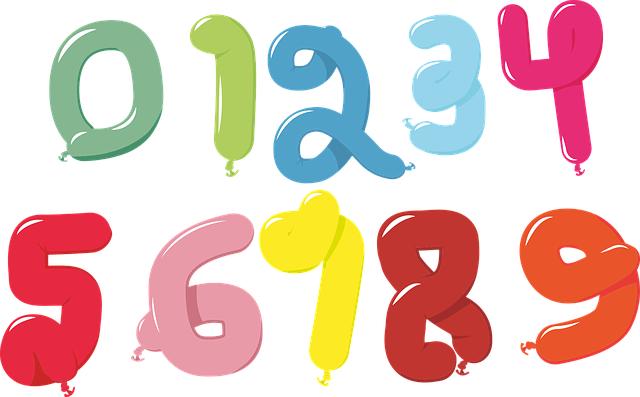
– Introducing the Balloon Font in Canva: A Fun and Whimsical Typography Option
Are you tired of using the same old boring fonts in your designs? Well, we have some exciting news for you! Canva is thrilled to introduce the Balloon Font, a fun and whimsical typography option that will add a playful touch to your creations. This unique font is perfect for those looking to add a bit of personality and charm to their designs.
The Balloon Font is not your typical font – it features round, bubbly letters that will make your text pop off the page. Whether you’re creating invitations, greeting cards, social media graphics, or any other design, this font is sure to make a statement. With its playful and lighthearted style, the Balloon Font is a great choice for anyone looking to inject some fun into their projects. So why settle for boring fonts when you can bring your designs to life with the Balloon Font?
– How to Use Balloon Font in Canva to Add Playfulness to Your Projects
Incorporating a fun and playful element into your design projects is as easy as using Canva’s Balloon Font feature. This unique font style adds a touch of whimsy and creativity to your creations, making them stand out and capture attention. To start using Balloon Font in Canva, follow these simple steps:
Experiment with different typography combinations to find the perfect balance between fun and functionality. Balloon Font can be a great tool for adding a touch of personality to your social media graphics, posters, invitations, and more. Have fun playing around with this feature to elevate your design projects and make them truly pop!
– Tips for Choosing the Right Colors to Complement the Balloon Font in Canva
When selecting colors to complement the Balloon font in Canva, it’s essential to consider the overall aesthetic you want to achieve. One tip is to choose colors that contrast with the font color itself, such as pairing a light font with a dark background. This contrast will make the text stand out and be more readable. Additionally, you can use color theory principles to create harmonious color schemes that enhance the font’s playful and whimsical nature. For example, consider using analogous colors (colors that are next to each other on the color wheel) or complementary colors (colors that are opposite each other on the color wheel) to create a visually pleasing design.
Another tip for choosing the right colors for the Balloon font in Canva is to take into account the mood or message you want to convey. For a bright and cheerful design, opt for vibrant and bold colors. On the other hand, if you want a more calming and serene look, choose softer pastel colors. Experiment with different color combinations to see what resonates with you and fits the overall theme of your project. Remember, there are no hard and fast rules when it comes to color selection, so feel free to play around and have fun with it!
– Creative Ways to Incorporate Balloon Font in Canva for Eye-catching Designs
If you’re looking to add a playful and eye-catching element to your designs in Canva, incorporating balloon font is a fantastic way to do so. Balloon font gives your text a fun and whimsical look that can enhance the overall appeal of your design. To make the most out of this unique font style, here are some creative ways to incorporate it into your Canva projects:
One creative way to use balloon font in Canva is to make it the focal point of your design. By using a large size and bold color, you can draw attention to a key message or quote in your layout. This can be particularly effective for social media graphics or posters where you want to grab the viewer’s attention quickly. Another way to utilize balloon font is to create custom titles and headings for your designs. Whether it’s for a blog post, presentation, or event invitation, using balloon font for headings can help your text stand out and make a bold statement.
Q: Are there any tips for using balloon fonts effectively?
A: When using a balloon font, it’s important to consider the overall tone and message of your design. Make sure the font complements the rest of your design elements and doesn’t overwhelm or distract from the main content. Experiment with different styles and sizes to find the perfect balance for your project.
Wrapping Up
In conclusion, Balloon Font on Canva adds a touch of whimsy to projects, making them playful and fun. Give it a try today!